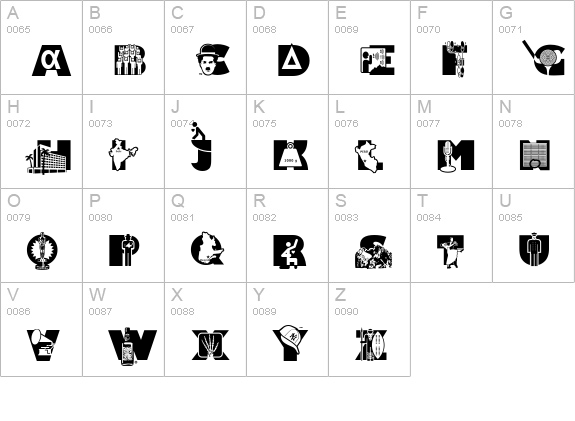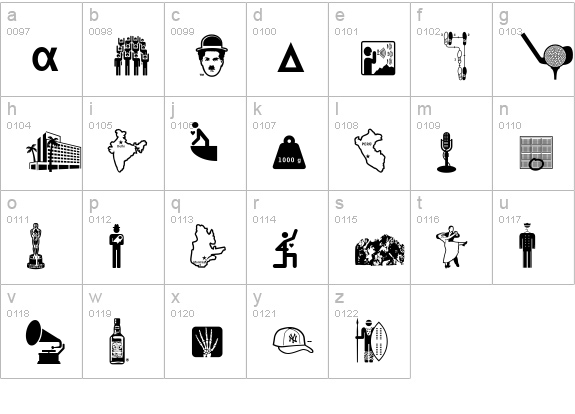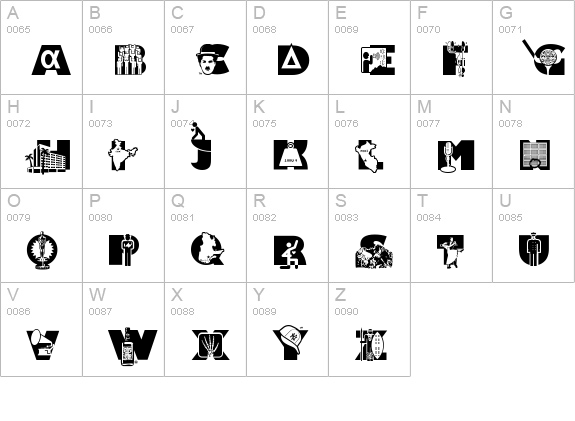
Alpha Bravo Font Details
Introducing Alpha Bravo font, a modern and versatile typeface that exudes a sense of sophistication and style. With its sleek lines and elegant curves, Alpha Bravo is perfect for a wide range of design projects, from branding to editorial layouts. This font is available for free download at FontsMarket.com, making it accessible to designers and creatives looking to elevate their work with a touch of class. Whether you're creating a logo, website, or print materials, Alpha Bravo is sure to make a statement and leave a lasting impression. Elevate your designs with Alpha Bravo today and see the difference it can make!